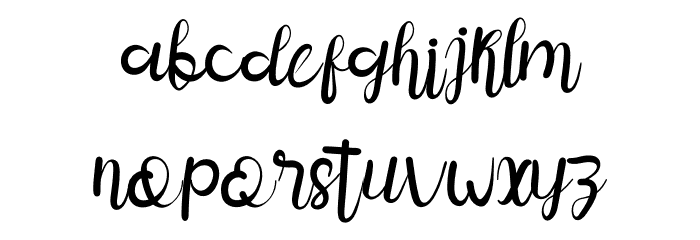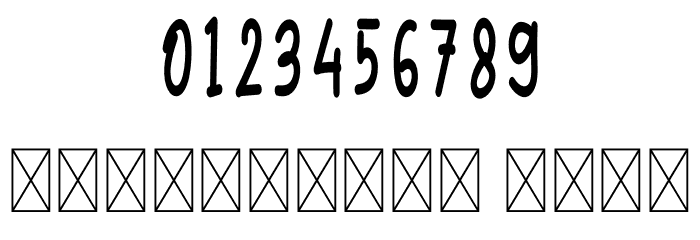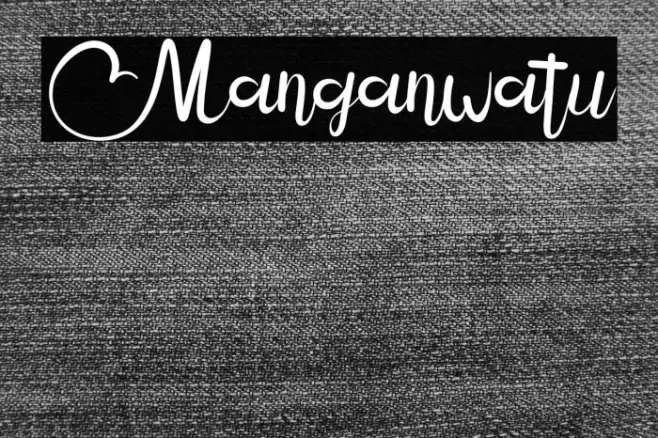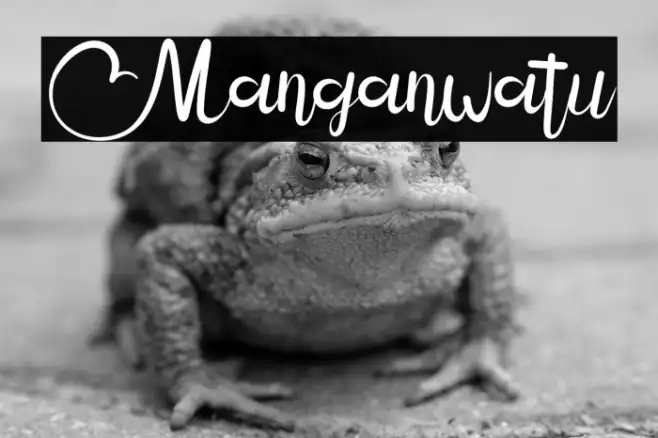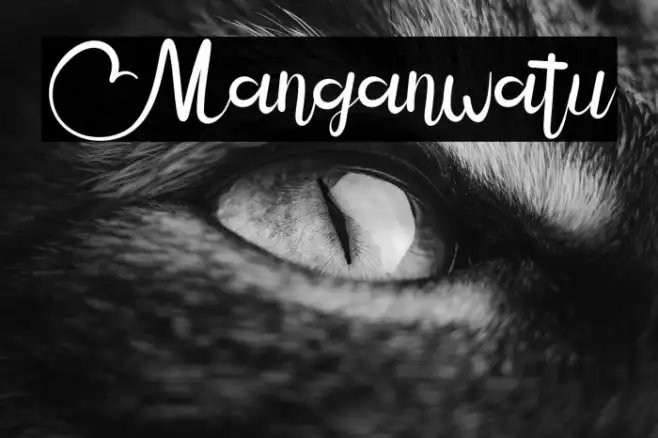
Manganwatu Font
This font features a playful and whimsical script style, characterized by its flowing and interconnected letters. The uppercase letters are elegantly looped, giving a sense of movement and fluidity, while the lowercase letters maintain a consistent and harmonious flow. The numbers are bold and slightly rounded, complementing the overall style. The font's design is both decorative and legible, making it suitable for a variety of creative applications. The special characters are not displayed, suggesting a focus on the alphabet and numerals.
A playful and whimsical script font with flowing, interconnected letters.
- Proposed Projects: Ideal for invitations, greeting cards, branding, and decorative projects.
- Use Case: Logos, Invitations, Decorative text